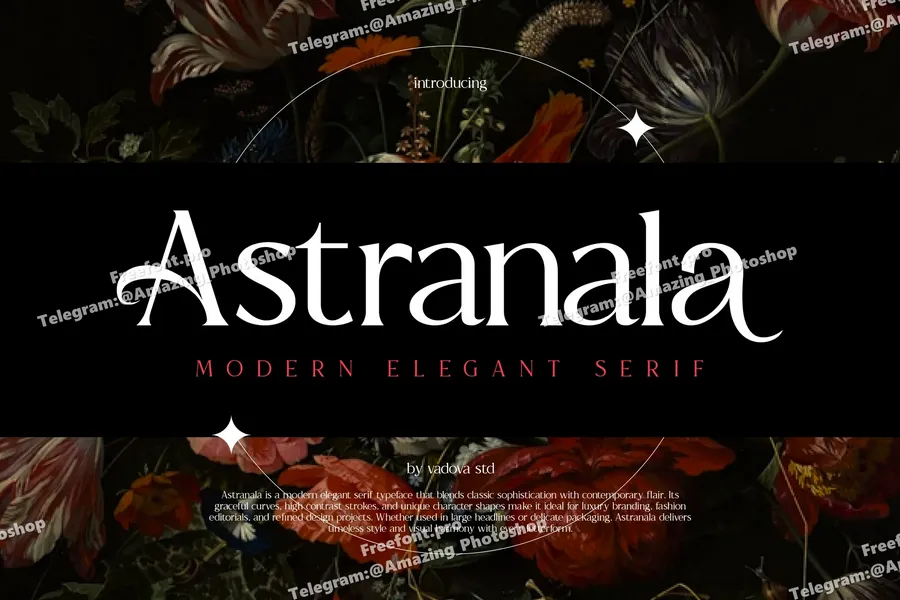
Astranala is a modern elegant serif font that blends timeless sophistication with artistic floral aesthetics. Designed for upscale branding, editorial layouts, and packaging, Astranala features graceful curves and high contrast strokes that make it ideal for fashion, lifestyle, and floral-inspired visuals. Its versatility elevates any project that seeks refined expression and captivating typographic impact.
Uppercase & Lowercase characters
Numeral & Punctuations